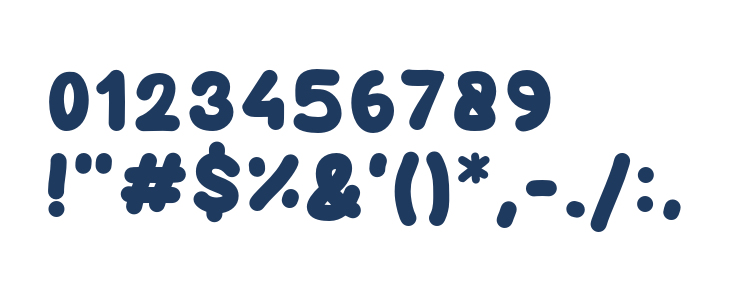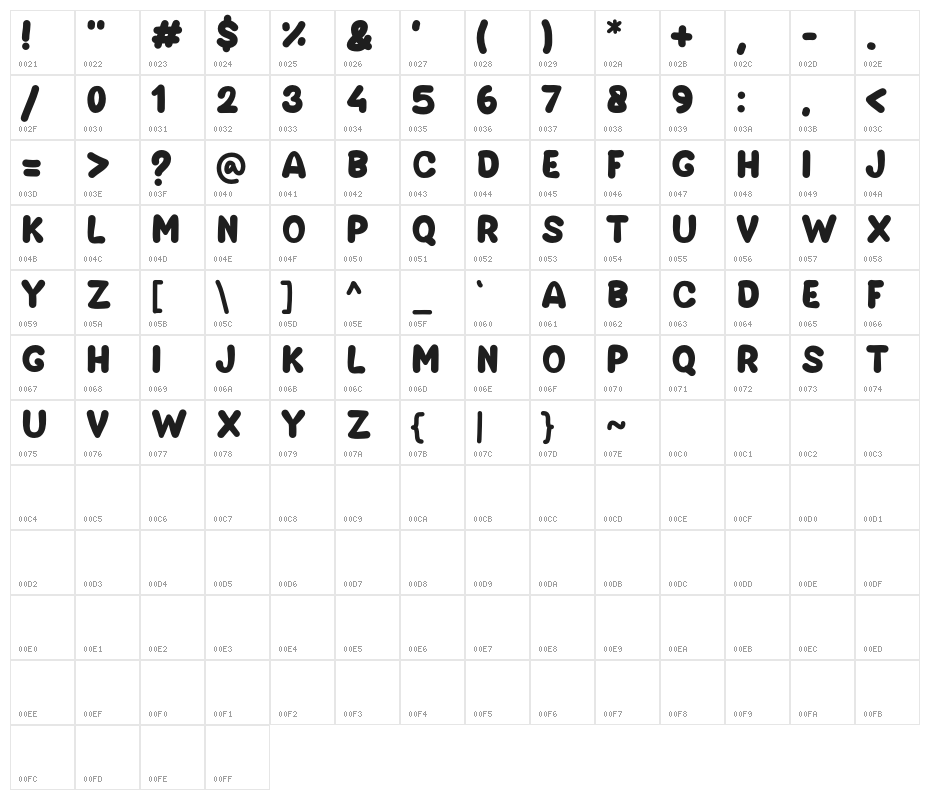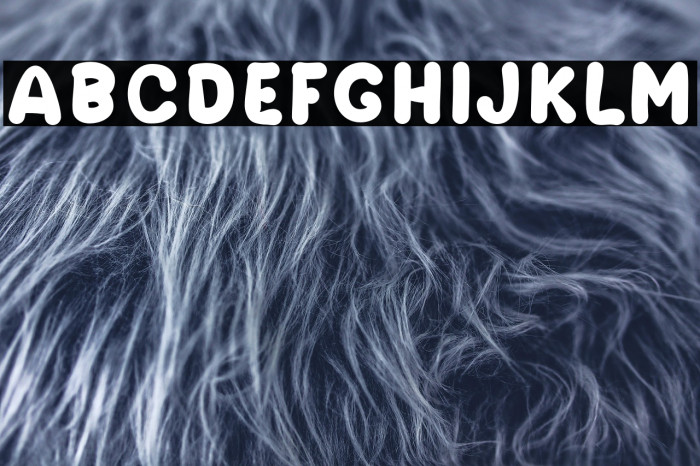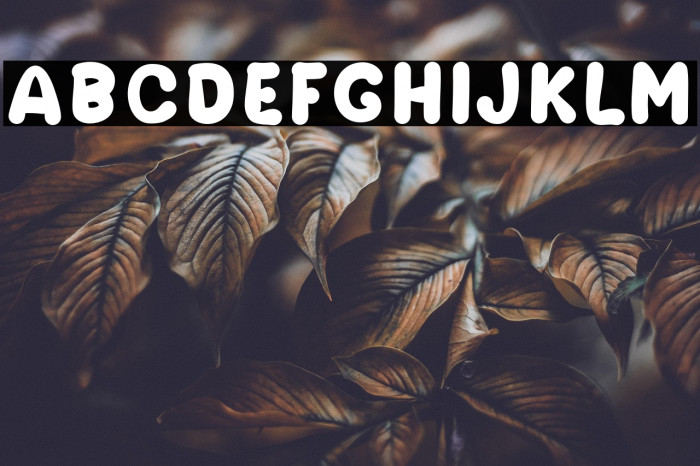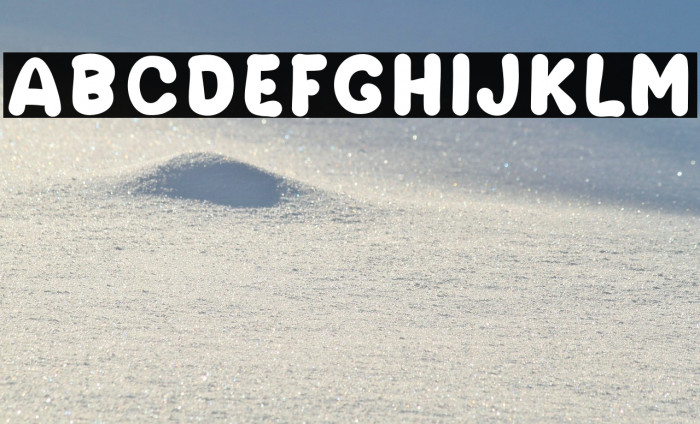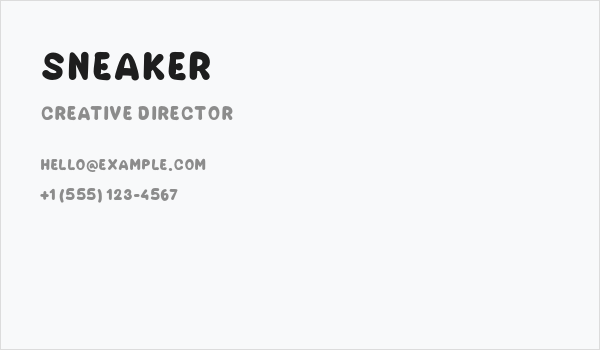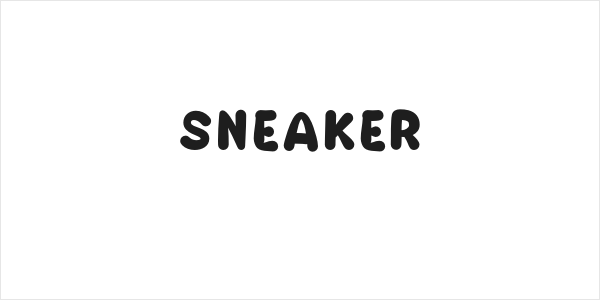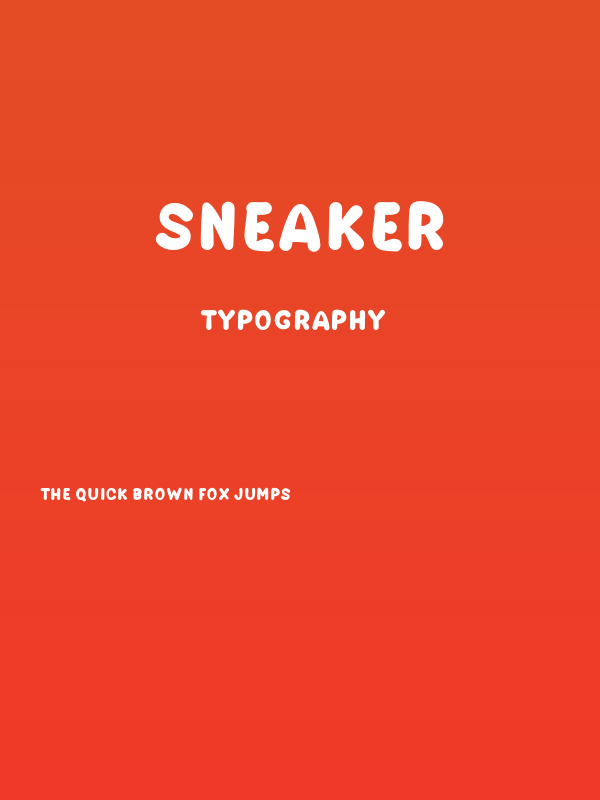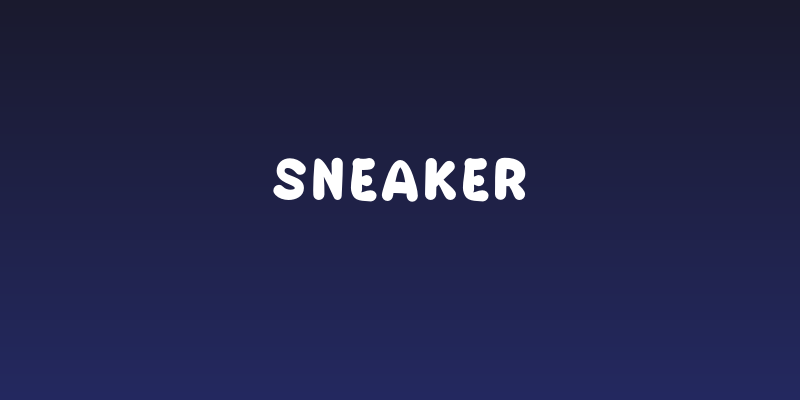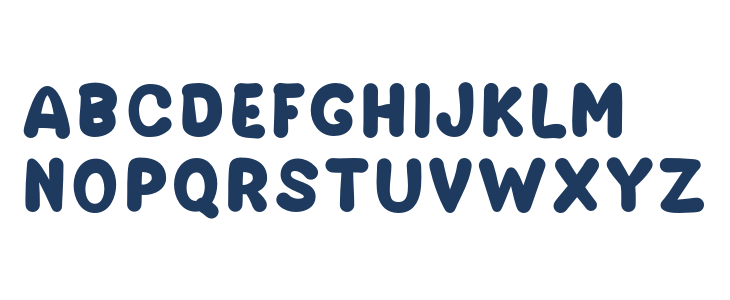
SNEAKER Font
SNEAKER Description
This playful and bold font features rounded, thick strokes that give it a friendly and approachable appearance. The characters are uniformly wide, creating a cohesive look across both uppercase and lowercase letters. The numbers and special characters maintain the same bubbly style, ensuring consistency throughout. The font's design is reminiscent of hand-drawn lettering, with a slightly irregular and organic feel that adds to its charm. Its thick lines and rounded edges make it highly legible, even at smaller sizes, while the overall style conveys a sense of fun and creativity.
Overall StylePlayful, Creative
Proposed ProjectsIdeal for children's books, playful branding, casual invitations, and creative posters.